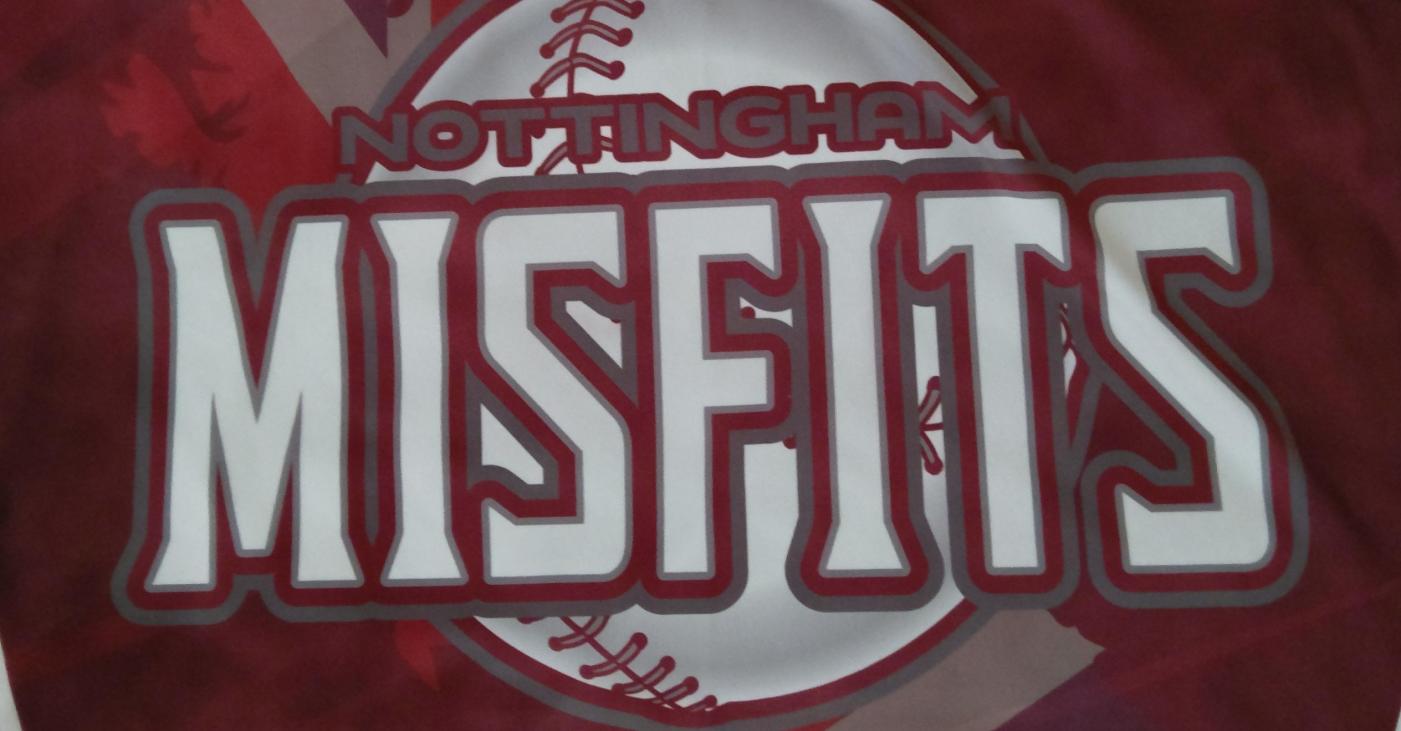
What is the actual font that our Softball club (Nottingham Misfits) is using?
This is a photo of the logo on our softball club's jersey. I think the creator of our shirts used a different font to our existing logo and as I have no way of contacting them I was wondering if anyone knew it. I'd like a digital version so they can change all their promotional/online stuff with it. I'm only looking for the MISFITS font please.
I believe that is hand-lettered. The person who did it may have had a Latin Condensed as a reference, but there are inconsistencies a competent font designer would not have overlooked.